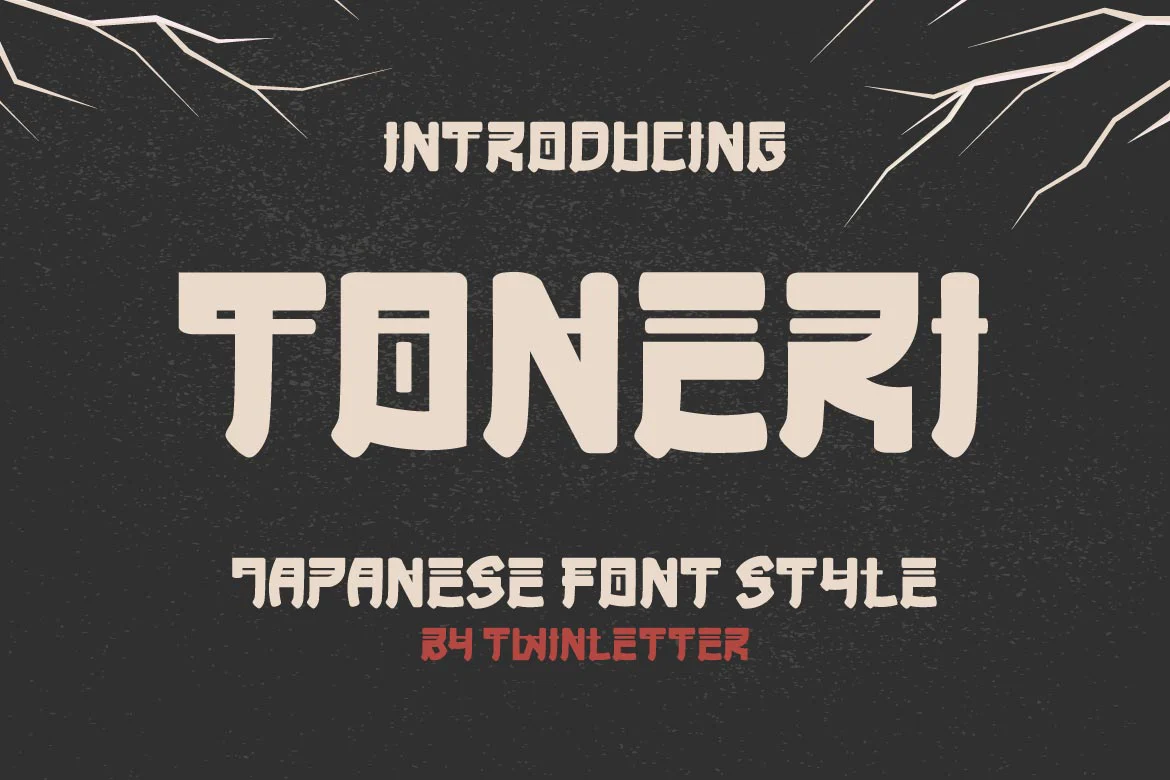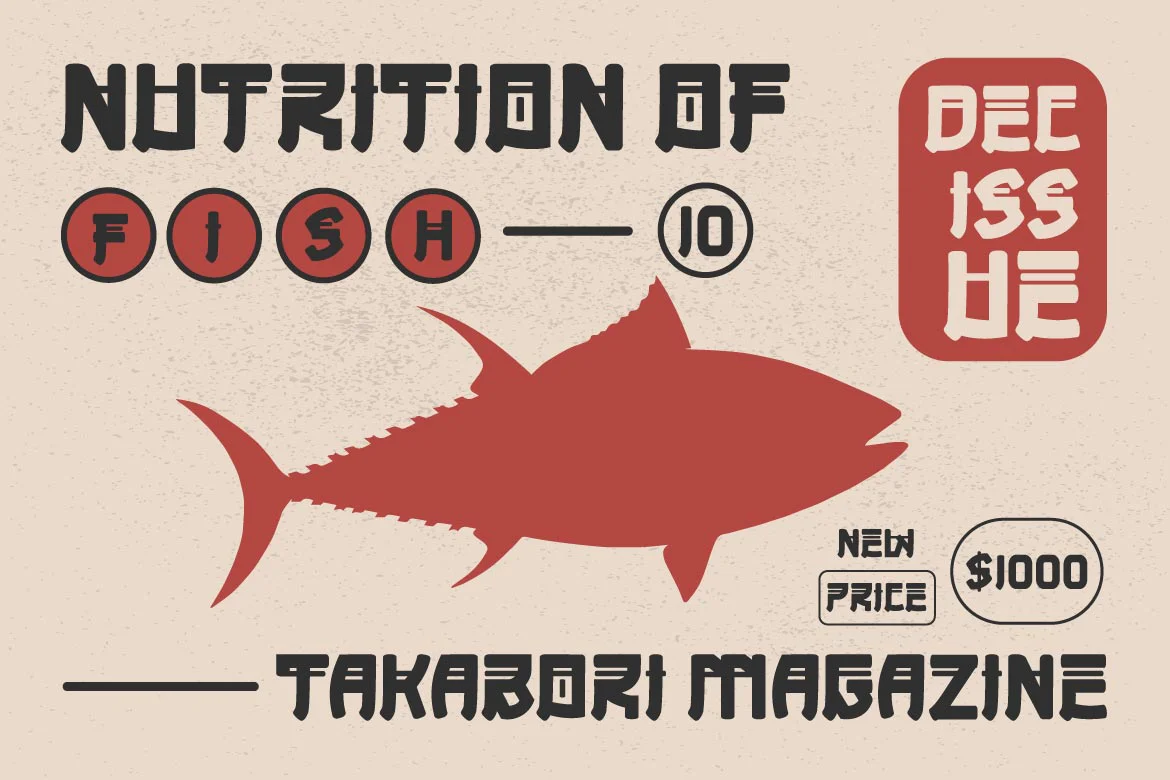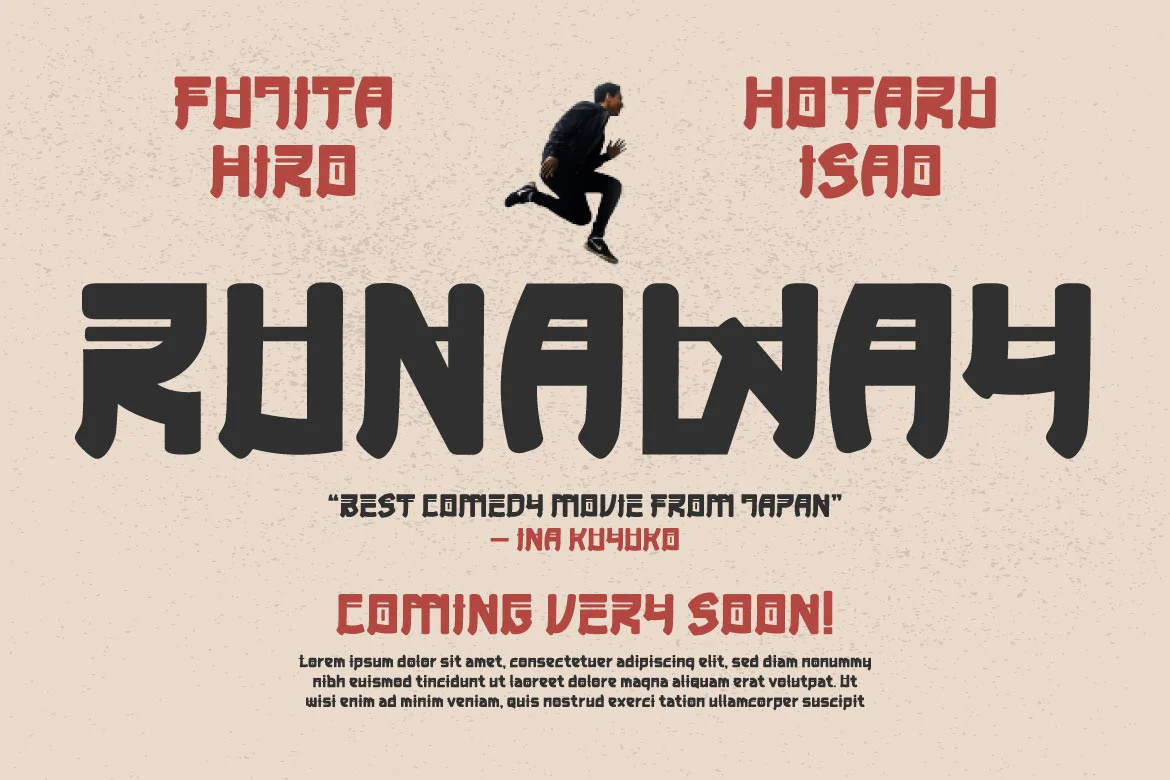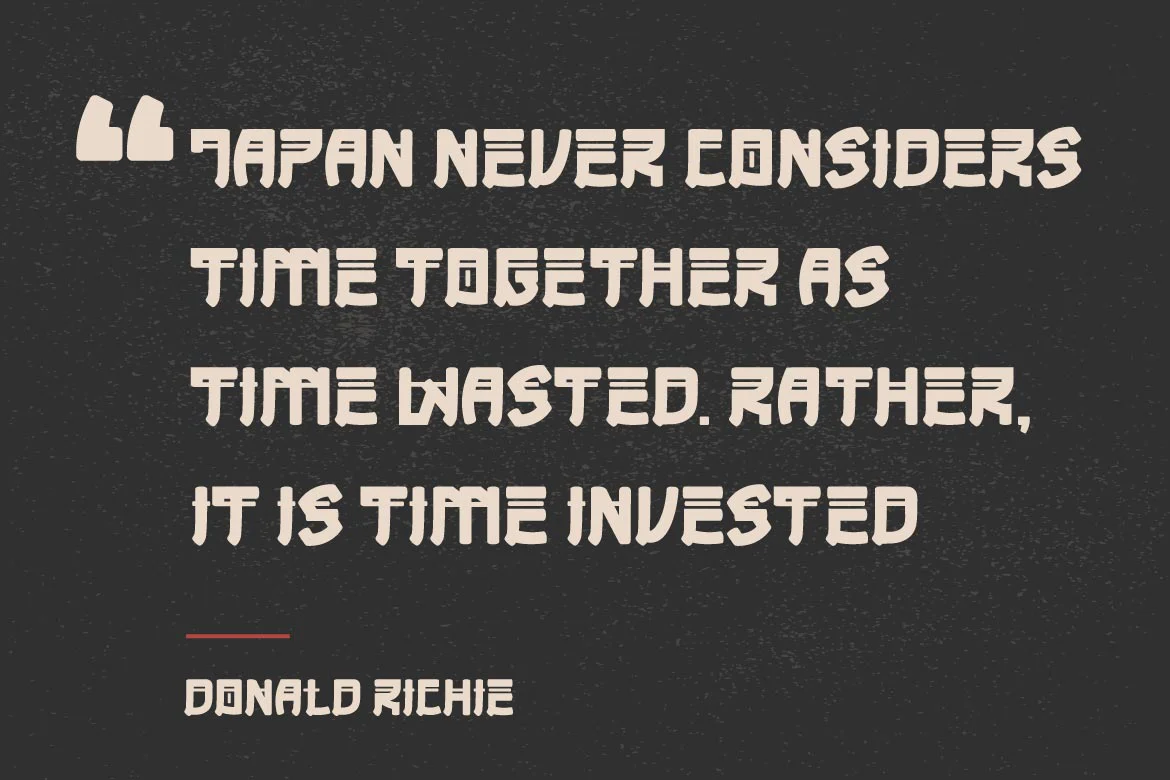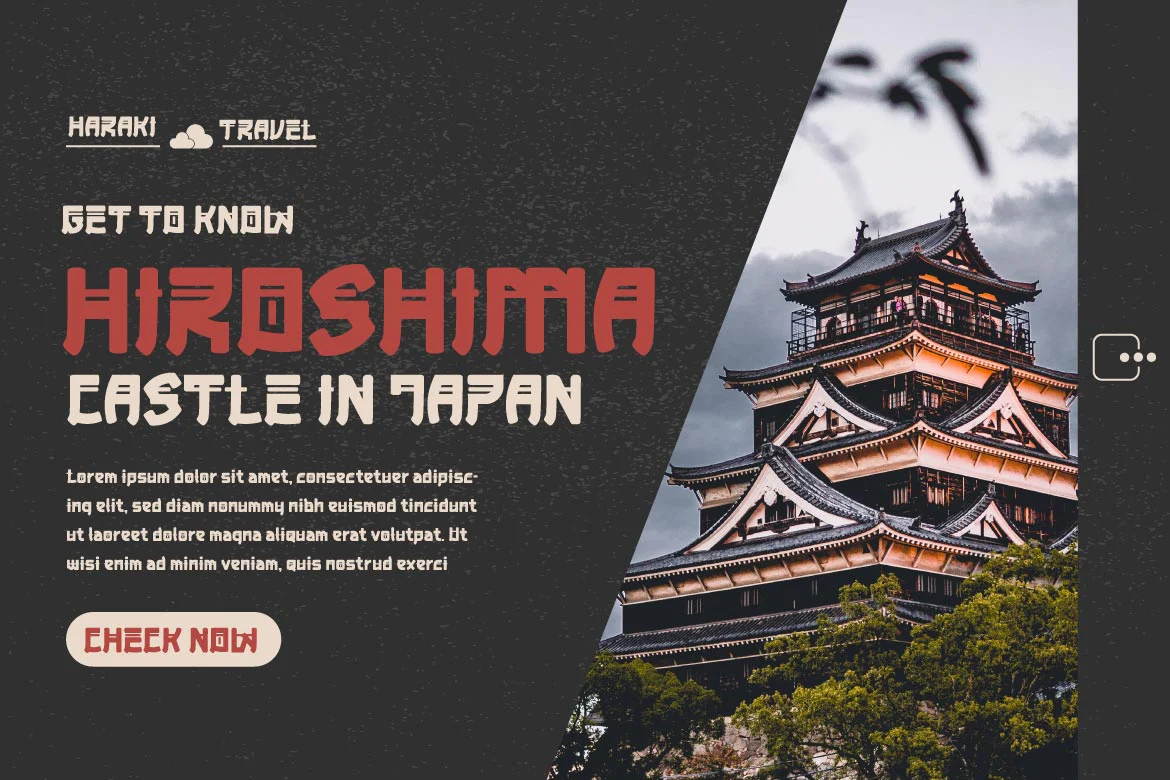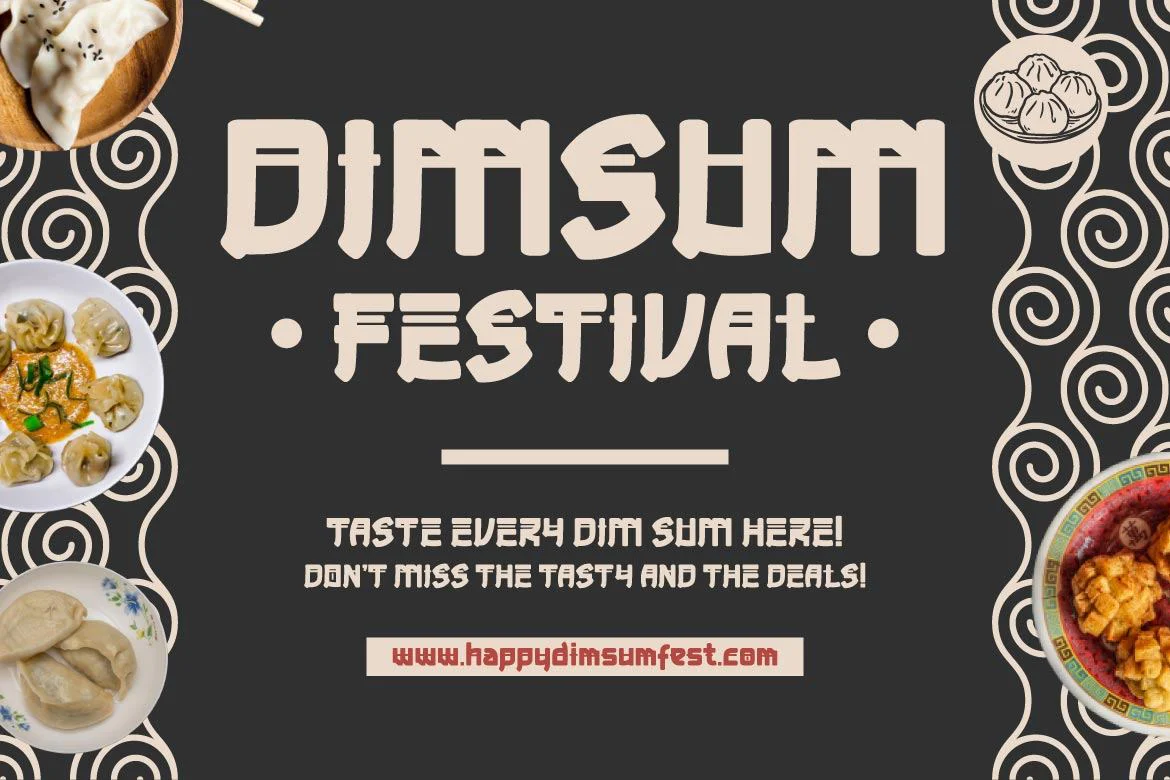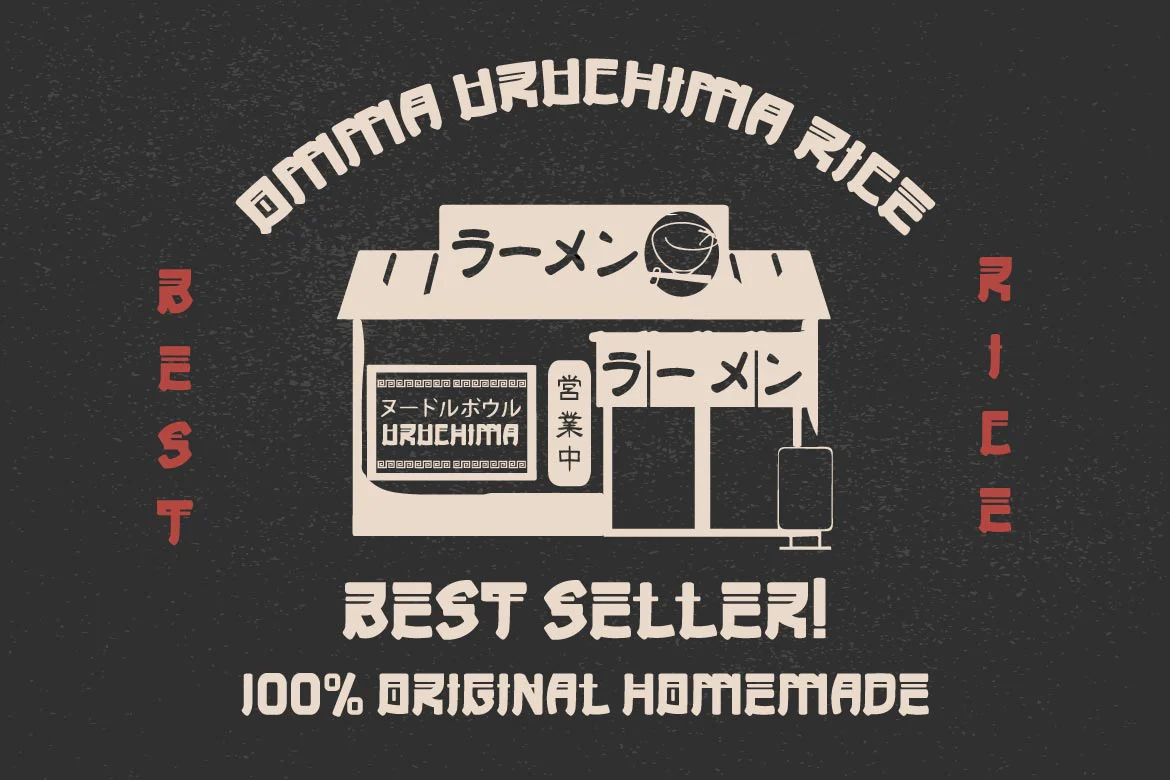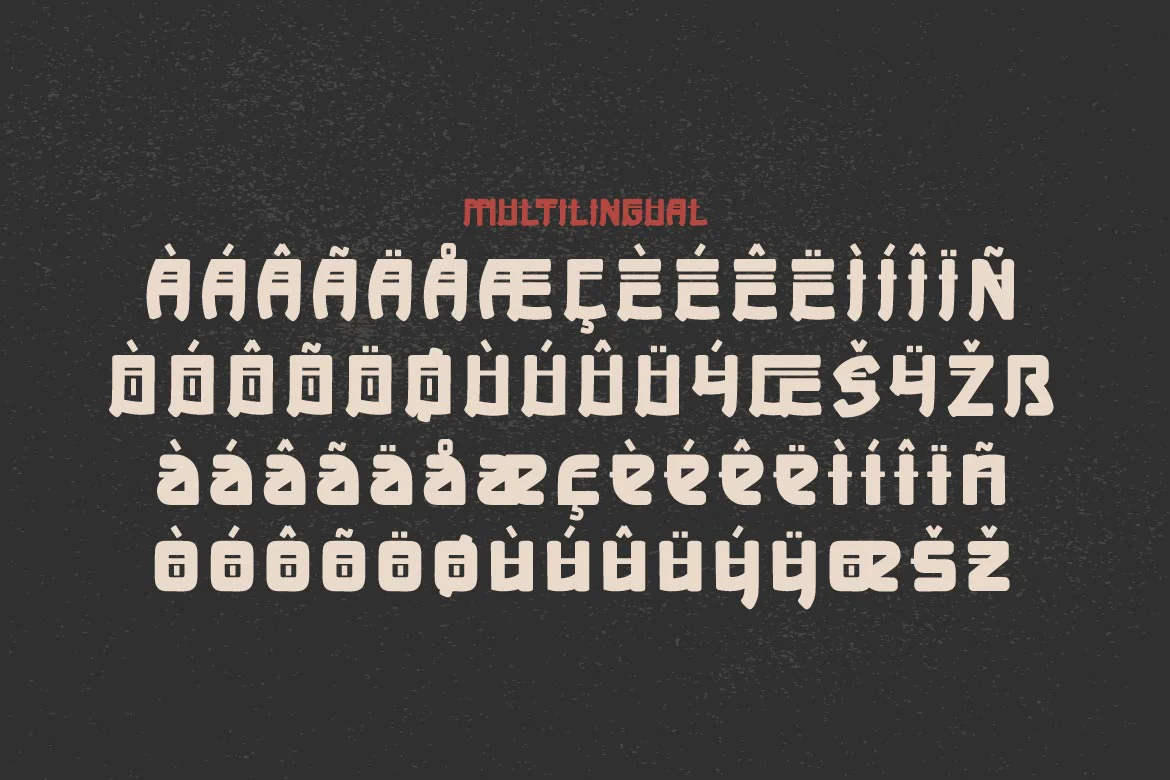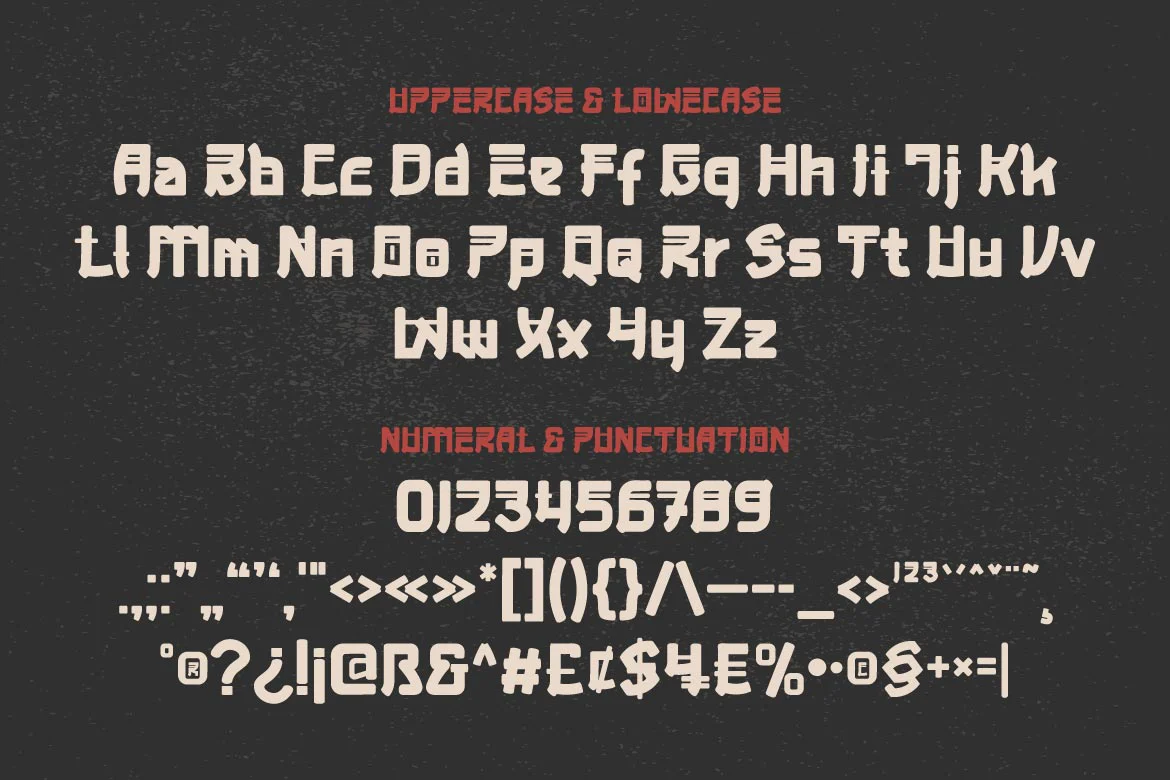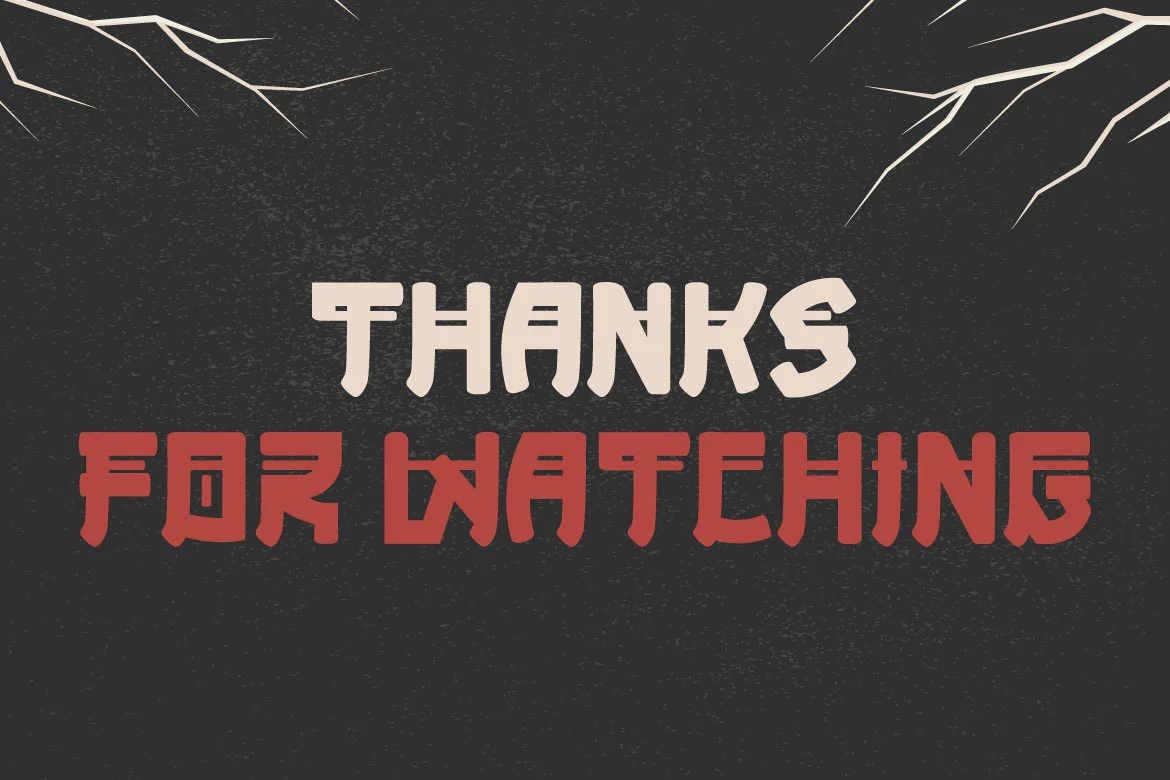
TONERI Japanese Font
TONERI is a Japanese-style display font with thick and strong characters, giving it a valiant appearance. If you use this font, your project will automatically become strong and conspicuous in the various media you use, your project will appear elegant, have a distinct character, and always stand out.
Logotypes, food banners, branding, brochure, posters, movie titles, book titles, quotes, and more may all benefit from this font.
Of course, using this font in your various design projects will make them excellent and outstanding; many viewers are drawn to the striking and unusual graphic display.
TONERI is a Japanese-style display font with thick and strong characters, giving it a valiant appearance. If you use this font, your project will automatically become strong and conspicuous in the various media you use, your project will appear elegant, have a distinct character, and always stand out.
Logotypes, food banners, branding, brochure, posters, movie titles, book titles, quotes, and more may all benefit from this font.
Of course, using this font in your various design projects will make them excellent and outstanding; many viewers are drawn to the striking and unusual graphic display.